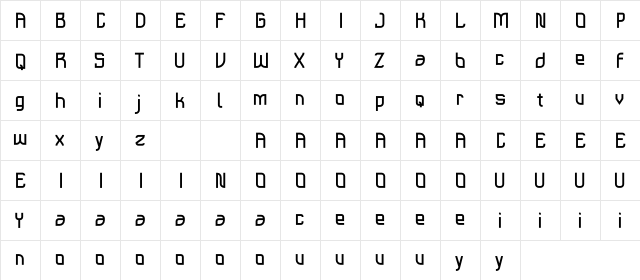
Satriya Demo Regular
| Foundry | Satriya Anggun |
| Designer | Satriya Anggun |
Design Context for Satriya Demo Typeface
Satriya Demo is a composed and adaptable typeface that performs quietly and consistently across a wide range of design contexts.